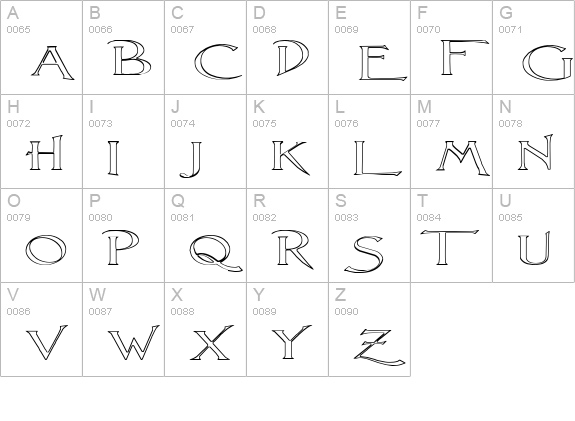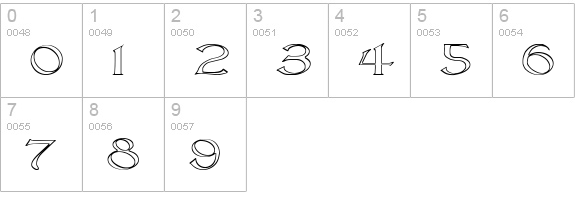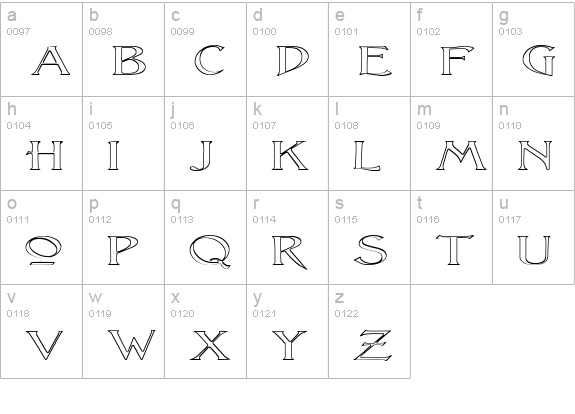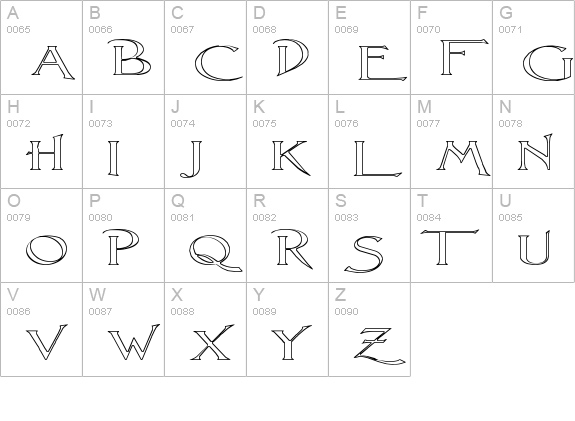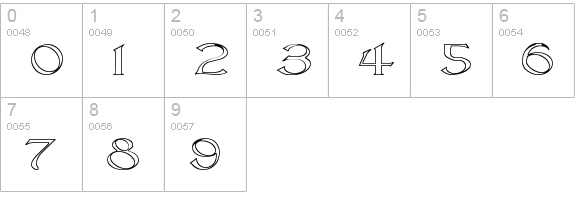
Lightfoot Outline Extra-expanded Regular Font Details
Lightfoot Outline Extra-expanded Regular is the standard, neutral, extended-width variant in the Lightfoot typeface family \xE2\x80\x94 well suited to general body text, paragraphs, and standard typographic work.
Lightfoot Outline Extra-expanded Regular font is a modern and stylish typeface that exudes elegance and sophistication. With its clean lines and unique design, this font is perfect for adding a touch of class to any project. The extra-expanded spacing of the characters gives it a distinctive look that sets it apart from other fonts. This font is ideal for creating eye-catching headlines, posters, logos, and more. Its versatility makes it suitable for both digital and print projects, ensuring that your text stands out wherever it is used. Whether you're designing a website, brochure, or social media graphics, Lightfoot Outline Extra-expanded Regular font is sure to make a statement. And the best part? Lightfoot Outline Extra-expanded Regular font is completely free to download at FontsMarket.com. So go ahead and elevate your designs with this stunning typeface today!